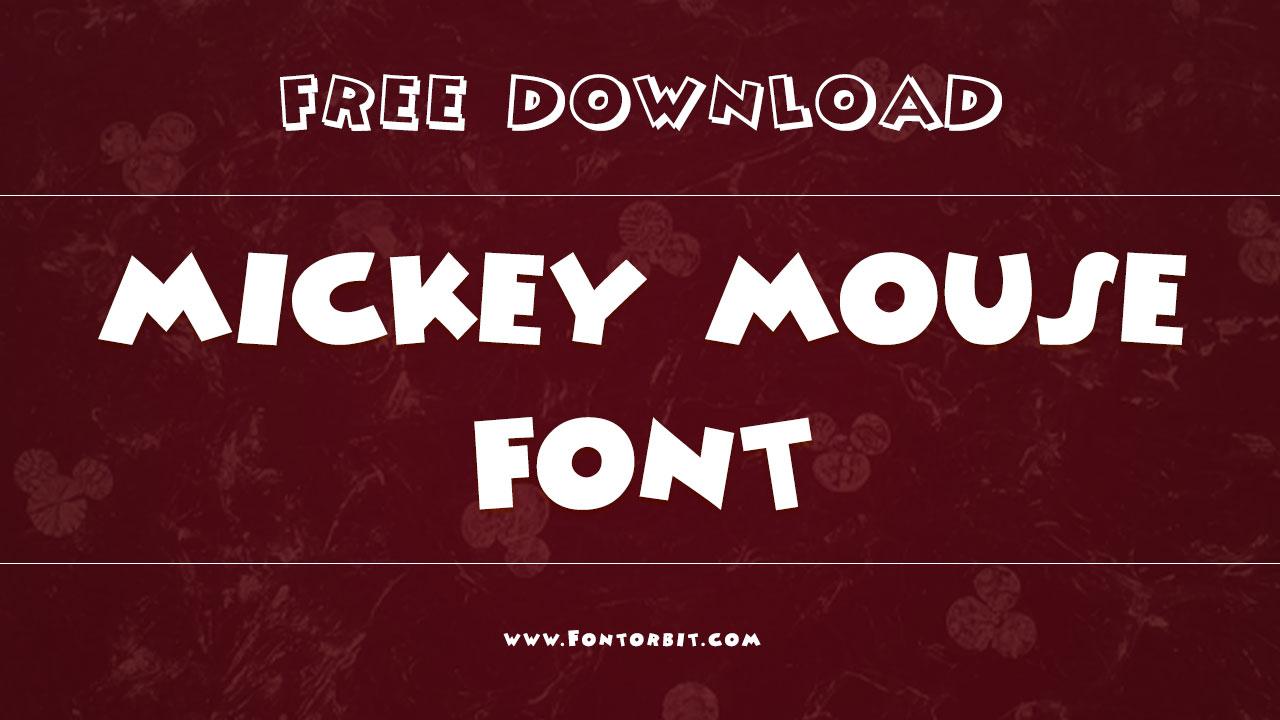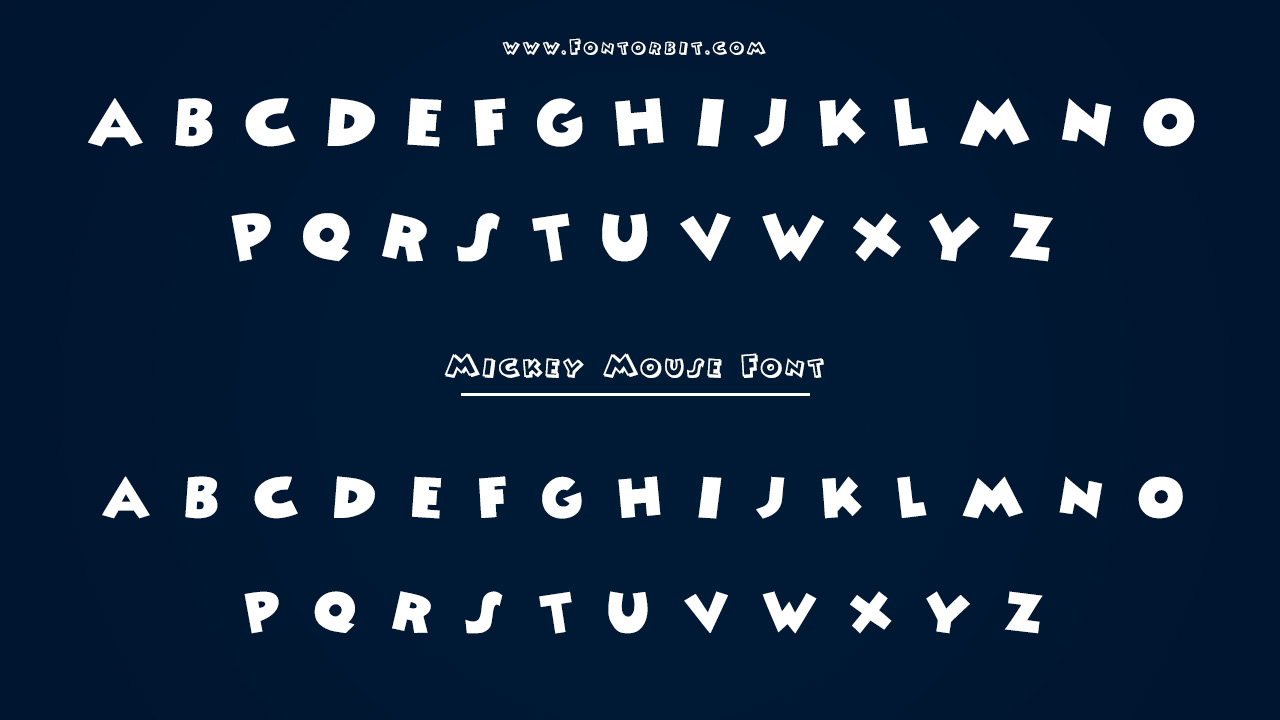
The Mickey Mouse Font is a whimsical typeface inspired by Disney’s iconic character, offering a blend of charm, humor, and nostalgia. Designed by Måns Grebäck and available for personal use, this typeface captures the spirit of classic cartoons and animations. With its distinctive style and playful aesthetic, the Mickey Mouse Font is perfect for creative projects, bringing a sense of fun and personality to any design.
Type Of The Mickey Mouse Font (Font Family)
The Mickey Mouse Font Family includes unique styles catering to a variety of design needs:
- Mickey Mouse Regular: A clean, cartoonish style that suits fun and engaging projects.
- Mickey Mouse Line: A minimal and outlined version, adding versatility to your designs.
Using Occasions Of The Mickey Mouse Font
The Mickey Mouse Font Family is ideal for numerous design scenarios. Some common use cases include:
- Party Invitations: Adds a playful touch to birthday or themed party cards.
- Children’s Projects: Perfect for posters, books, or educational materials.
- Disney-Themed Merchandise: A nostalgic choice for creating memorable designs.
- Social Media Graphics: Enhances posts with a fun and engaging typeface.
Mickey Mouse Font Found In Use
The Mickey Mouse Font is widely used for projects that need a lighthearted, cartoonish vibe. Its design is especially popular for:
- Disney fan creations like banners, logos, and event signage.
- Cartoon-themed marketing materials for kids’ parties or events.
- Typography projects requiring a blend of nostalgia and humor.
The Mickey Mouse Font captures the timeless magic and whimsy of Disney’s beloved classic. It is perfect for creative projects that aim to evoke charm and nostalgia. This font adds an unmistakable touch of Disney enchantment to your designs.
Whether you’re creating party invitations, themed merchandise, or social media graphics, it delivers joy and playfulness effortlessly. The font brings a dash of childhood wonder to every project.
1.What Makes The Mickey Mouse Font Special?
The Mickey Mouse Font is a playful blend of cartoon-style lettering and classic Disney nostalgia, inspired by the iconic Disney character Mickey Mouse. Its whimsical and lighthearted design makes it ideal for cartoons, animation, and projects needing charm, humor, and a touch of Disney magic.
3.What Are The Primary Uses Of The Mickey Mouse Font?
This font is versatile and widely used for projects like:
- Disney fan designs, such as banners and party invitations.
- Mickey Mouse Clubhouse-inspired themes for children’s events.
- Creating retro fonts-inspired designs with a nostalgic flair.
It’s a popular choice for Disney fans, blending seamlessly into design projects that need a cartoon or vintage style.